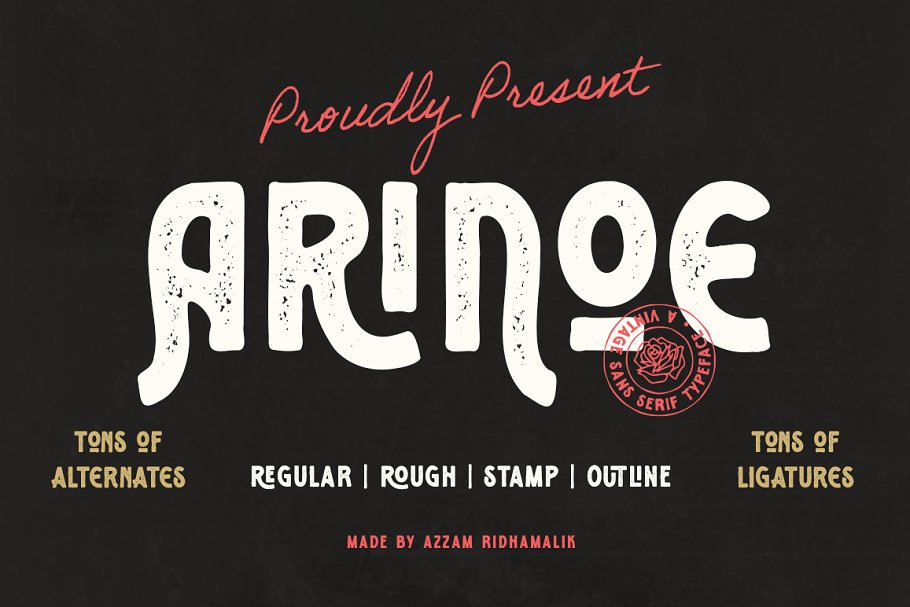
Are you looking for the perfect font to add an authentic and unique touch to your creative projects? Look no further than Arinoe, the vintage display font from Zarma Type that is taking the design world by storm.
Arinoe is a sans-serif font that boasts a rustic feel and embodies authenticity and uniqueness in every character. Its cool and edgy style will make any project stand out and grab attention. Plus, with tons of alternates and ligatures to explore, you can customize the font to fit your design needs perfectly.
If you're a coffee shop owner or looking to create a coffee-themed project, Arinoe is the best font for coffee shop designs. The font's vintage style and authentic feel will transport your customers to a cozy, rustic cafe that feels like home.
Don't settle for a boring font that blends in with the crowd. Choose Arinoe and add a unique and authentic touch to your next project. Get inspired, get creative, and enjoy the font!